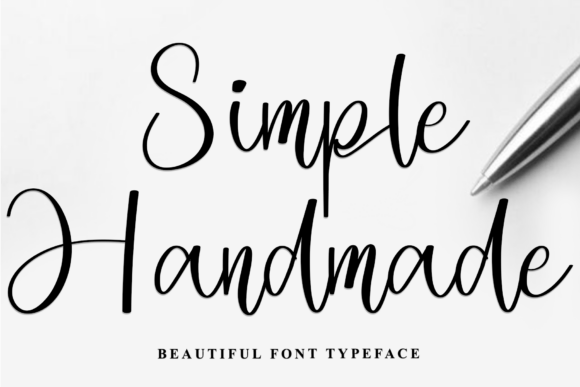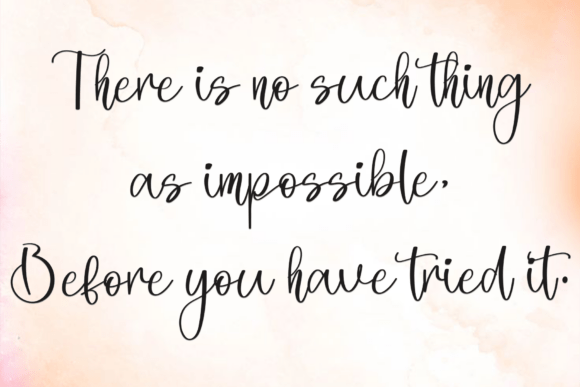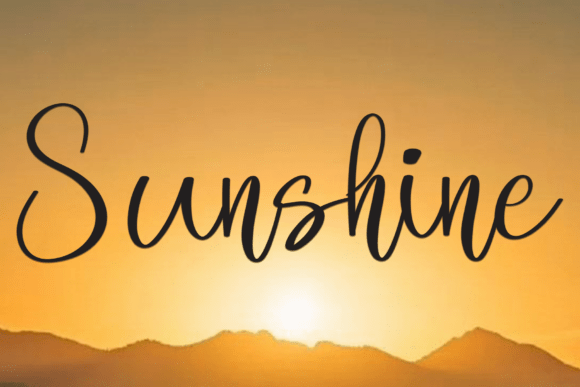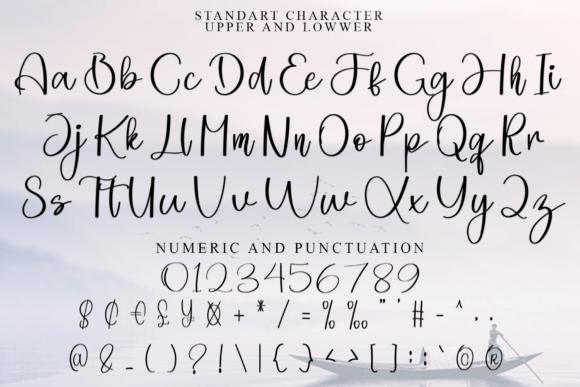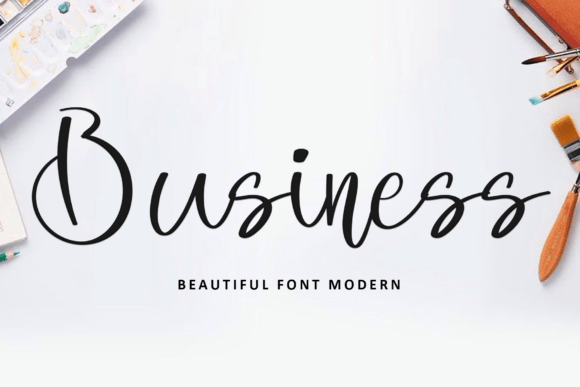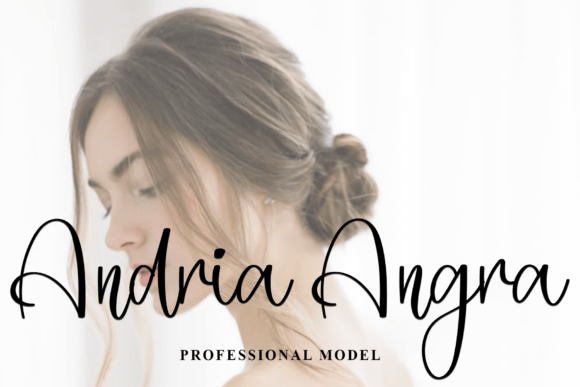
Deddy Handmade Font: Elevate Your Designs with a Unique Touch
In the world of design, a font can make all the difference in creating a lasting impression. Introducing Deddy Handmade, a beautiful and eye-catching font that adds a soft, unique touch to any design project. With its distinctive strokes and special character, Deddy Handmade is the perfect choice for designers, crafters, and creative professionals looking to make their mark.
The Beauty of Deddy Handmade
Deddy Handmade is a meticulously crafted font that boasts a natural, handmade style. Its unique strokes and character set make it stand out from other fonts, giving it a special charm that is hard to resist. The font’s soft and delicate appearance makes it perfect for designs that require a touch of elegance and sophistication.
One of the key benefits of Deddy Handmade is its versatility. The font comes with a wide range of characters, making it suitable for various design projects, crafts, and creative works. Whether you’re working on a logo, brochure, or social media graphics, Deddy Handmade is the perfect choice. Its unique style and character set ensure that your designs will be noticed and remembered.
Ideal for a Wide Range of Products
Deddy Handmade is an ideal choice for a wide range of products, including:
- Brochures and flyers
- Crafts and DIY projects
- Packaging and labeling
With Deddy Handmade, you can create stunning designs that will elevate your brand and products to the next level.
Enhance Your Designs
Deddy Handmade is designed to enhance your designs and make them appealing to a wide range of audiences. Its unique style and character set ensure that your designs will stand out from the crowd, making it perfect for designers and crafters who want to make a lasting impression.
Deddy Handmade is a must-have font for designers and crafters who want to add a touch of elegance and sophistication to their designs. Whether you’re a professional designer or a DIY enthusiast, Deddy Handmade is the perfect choice for anyone looking to create stunning designs that will leave a lasting impression.